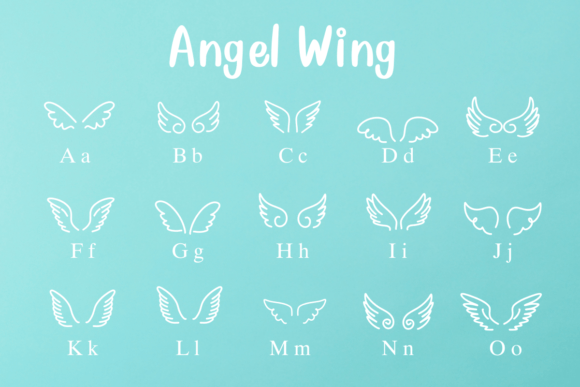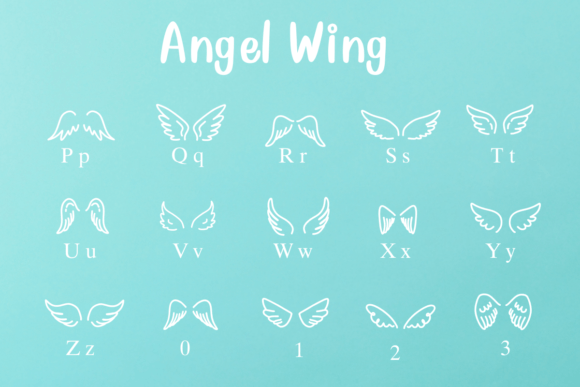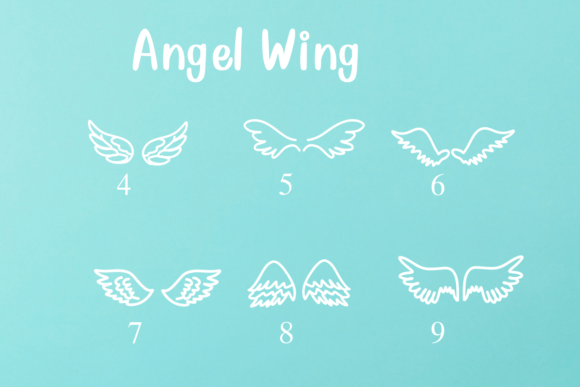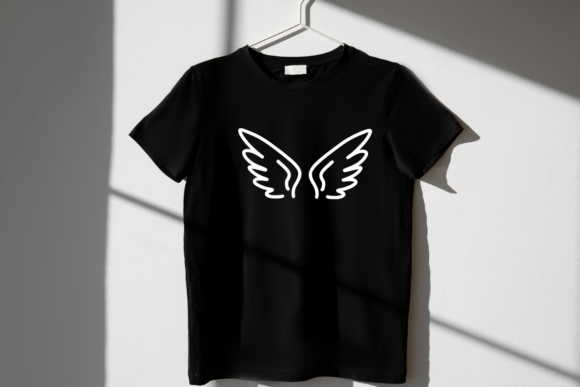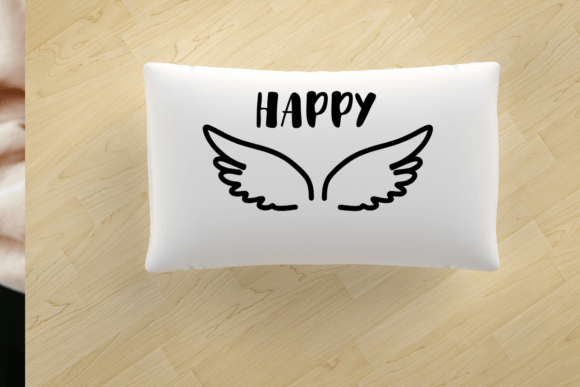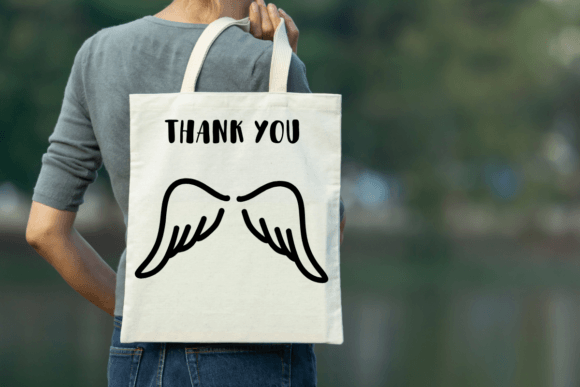
Unfurl the Magic of Angel Wing Font
Have you ever been inspired by a font that transcends mere letters and numbers? For designers, there’s a moment when a unique font captures their imagination and sparks a creative idea. That’s exactly what happens when you discover the enchanting Angel Wing Font. This special typeface transports your words to a realm of wonder, where delicate wings take the place of regular characters.
Perfect for adding a touch of magic to invitations, holiday cards, and other designs, the Angel Wing Font is a treasure for designers seeking to infuse their work with a heavenly essence. Its versatility and whimsical charm make it an ideal choice for those who want to add a dash of fantasy to their projects.
- Unique Characteristics: Angel Wing Font features a distinctive, whimsical design with delicate wing-like elements, making it suitable for use in creative and artistic projects.
- Font Style: Angel Wing Font comes in a single style, but it can be easily customized using font editing software to create various effects and variations.
Angel Wing Font Review
✨ I have to say, I was immediately drawn to the whimsical and dreamy quality of the Angel Wing Font. The flowing lines and delicate curves give it a sense of ethereal beauty that’s perfect for titles, headings, and other decorative text. It’s a great choice for designers who want to add a touch of magic to their projects.
The font is well-suited for body text as well, especially for longer passages or articles where a more relaxed, conversational tone is desired. It’s a great choice for those who want to create a sense of intimacy and warmth in their content.
⚠️ One of the main limitations of the Angel Wing Font is its readability in smaller sizes. While it’s beautiful at larger sizes, it can become difficult to read at smaller sizes due to the intricate details and flowing lines. This may limit its use in situations where text needs to be displayed at a smaller size.
⚠️ Another limitation is its limited character set. While it’s a great choice for decorative text, it may not be suitable for situations where a full range of characters is required, such as for languages that use non-Latin scripts.
In conclusion, the Angel Wing Font is a beautiful and unique choice for designers who want to add a touch of whimsy and magic to their projects. While it has some limitations, it’s a great choice for titles, headings, and body text where a more relaxed, conversational tone is desired.
Overall, I would recommend the Angel Wing Font to designers who are looking for a unique and beautiful font that’s perfect for decorative text and body text. However, it’s not suitable for situations where readability and character set are critical.
I would give the Angel Wing Font 4 out of 5 stars. While it’s a beautiful and unique font, its limitations in terms of readability and character set prevent it from being a top choice for all design projects.
Best Use Cases
- Decorative text and titles
- Body text for longer passages or articles
The Angel Wing font is ideal for creating whimsical and romantic designs. To get the most out of it, use it in conjunction with other decorative fonts and add intricate details to create a unique look.
The Angel Wing font is commonly used in wedding invitations, birthday party decorations, and other celebrations. It’s also used in digital art, graphic design, and typography projects.